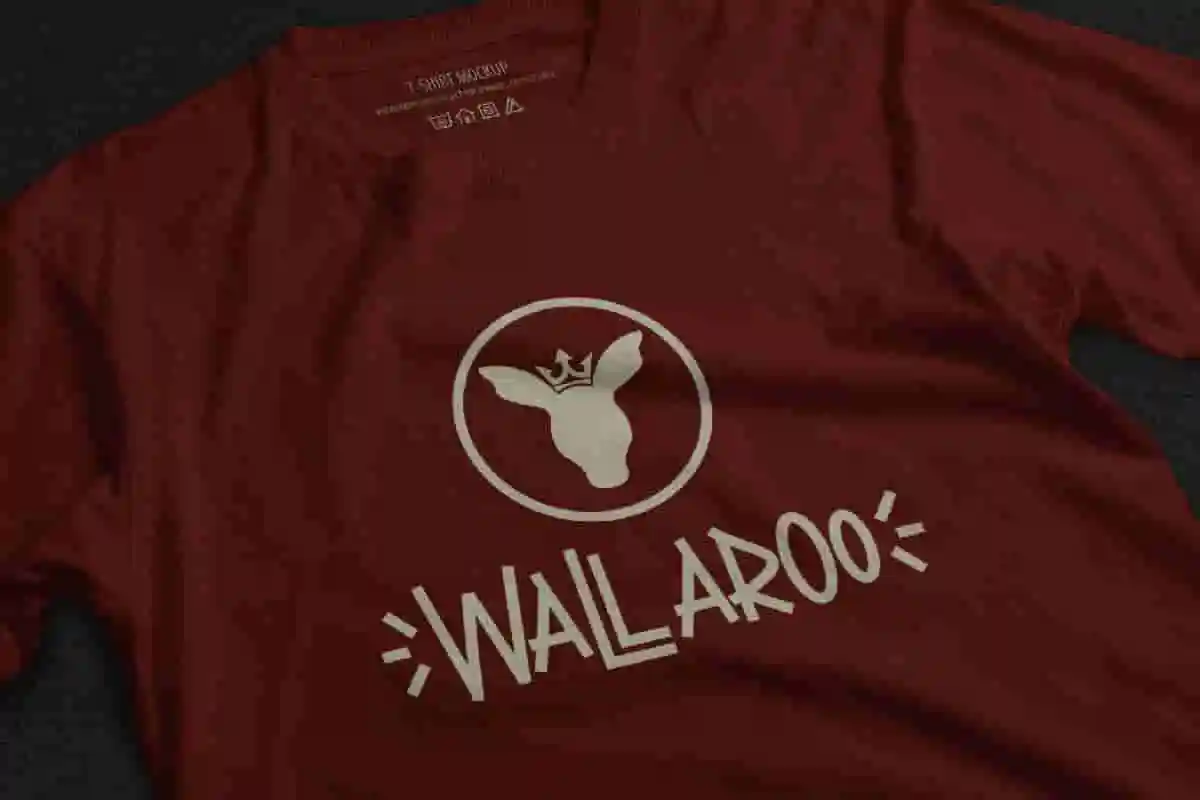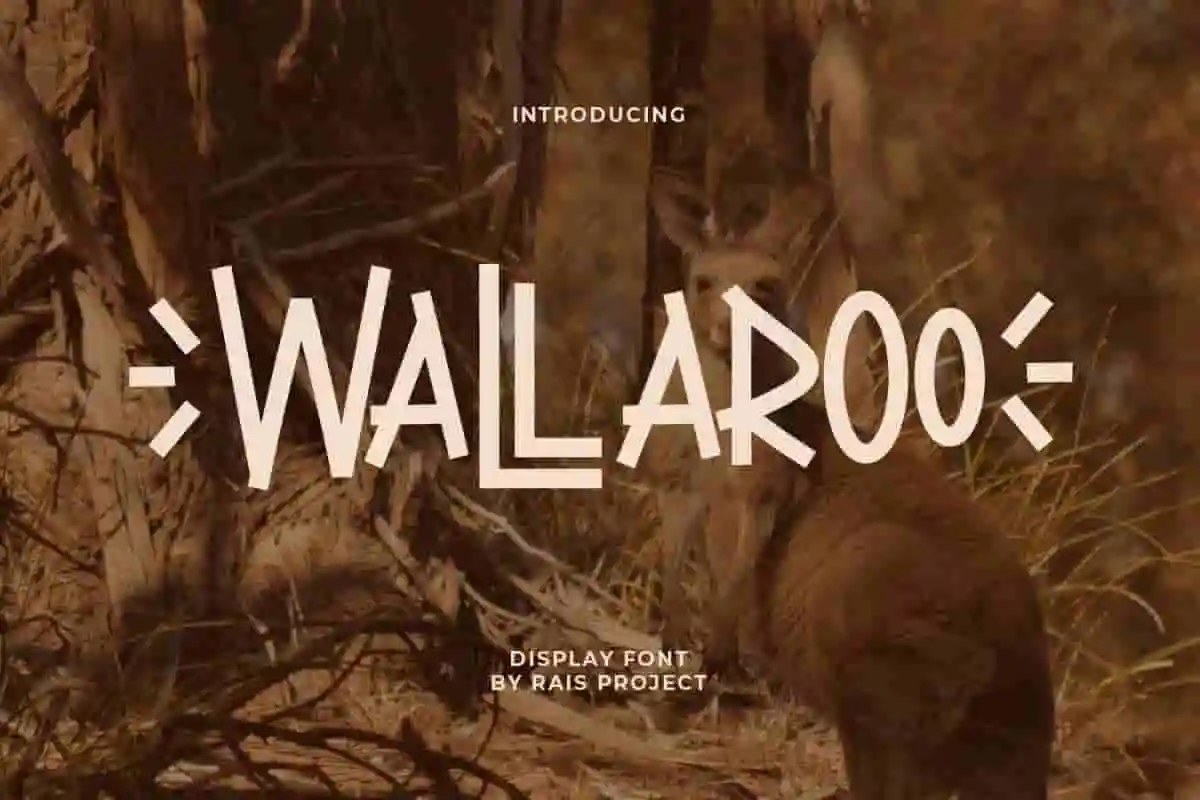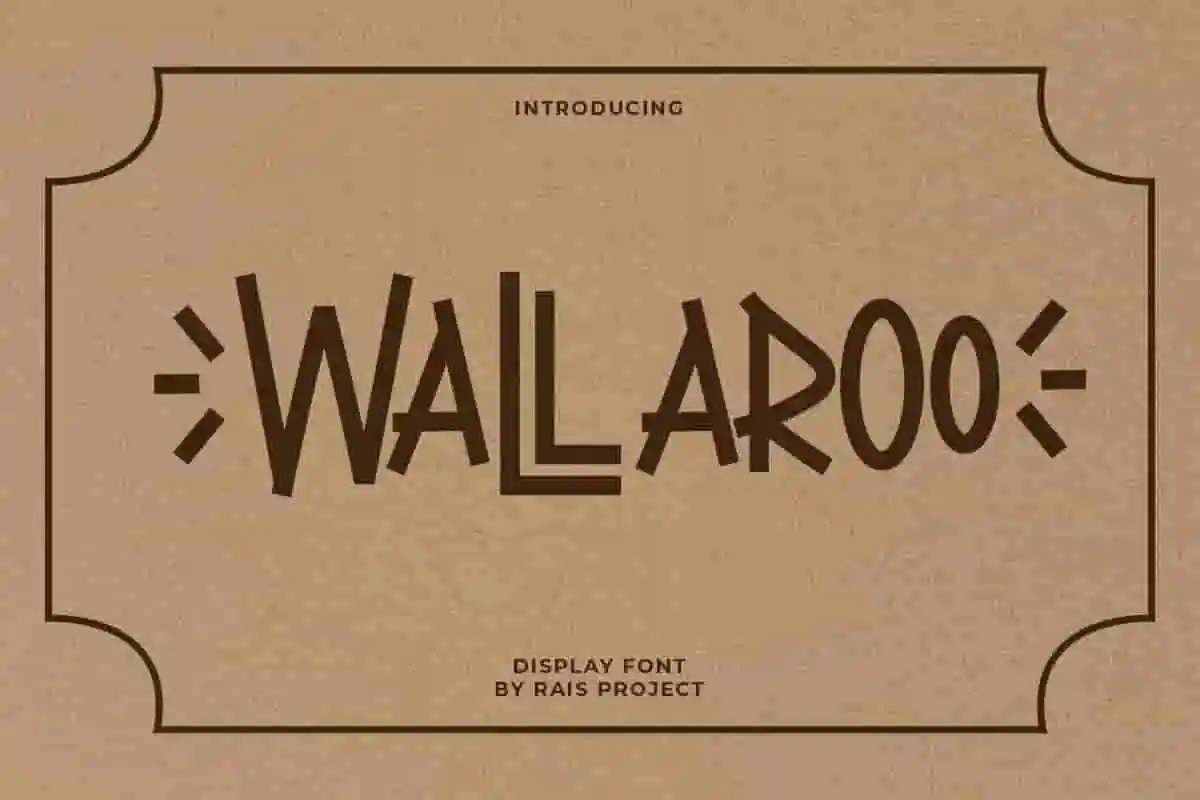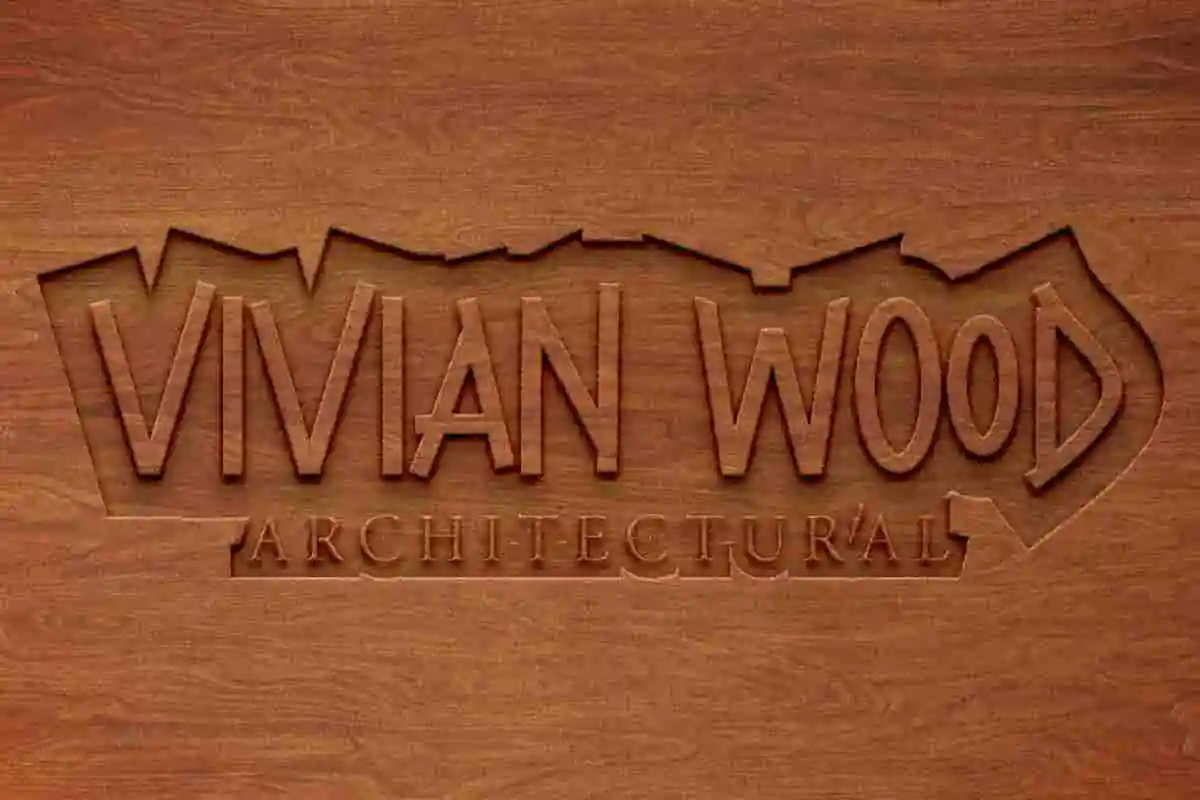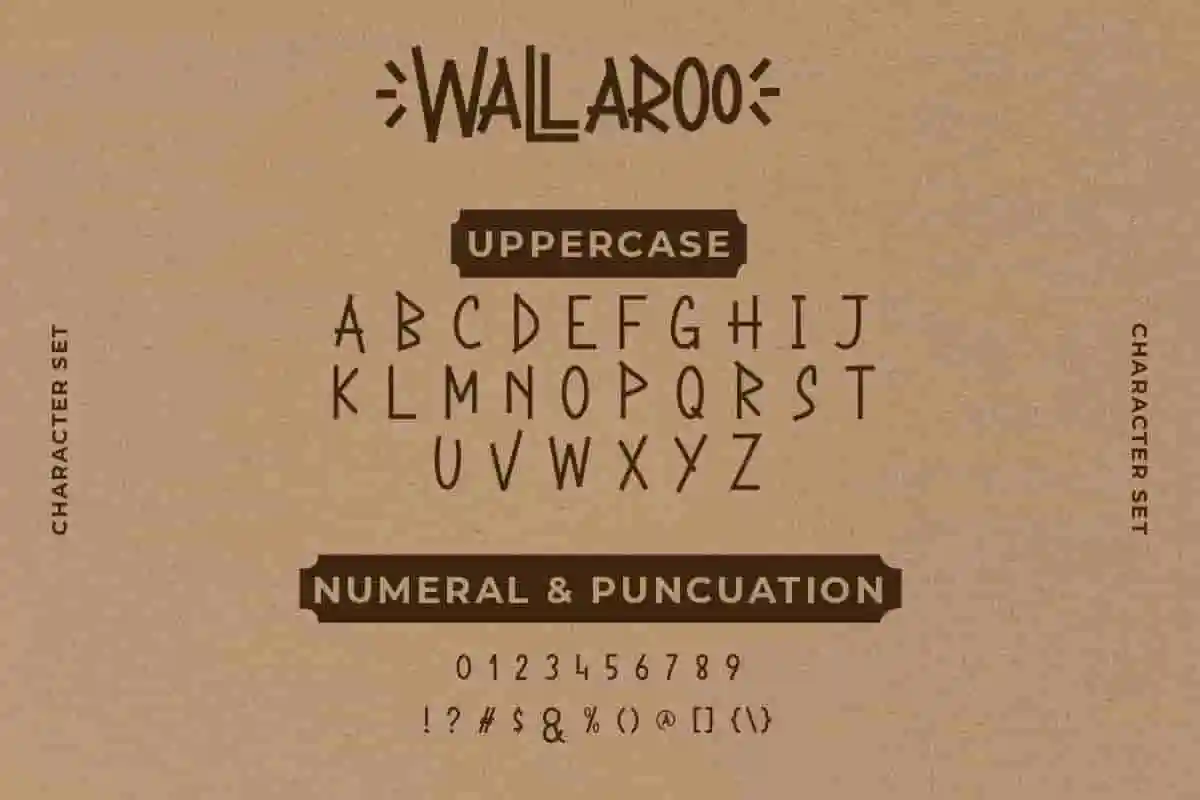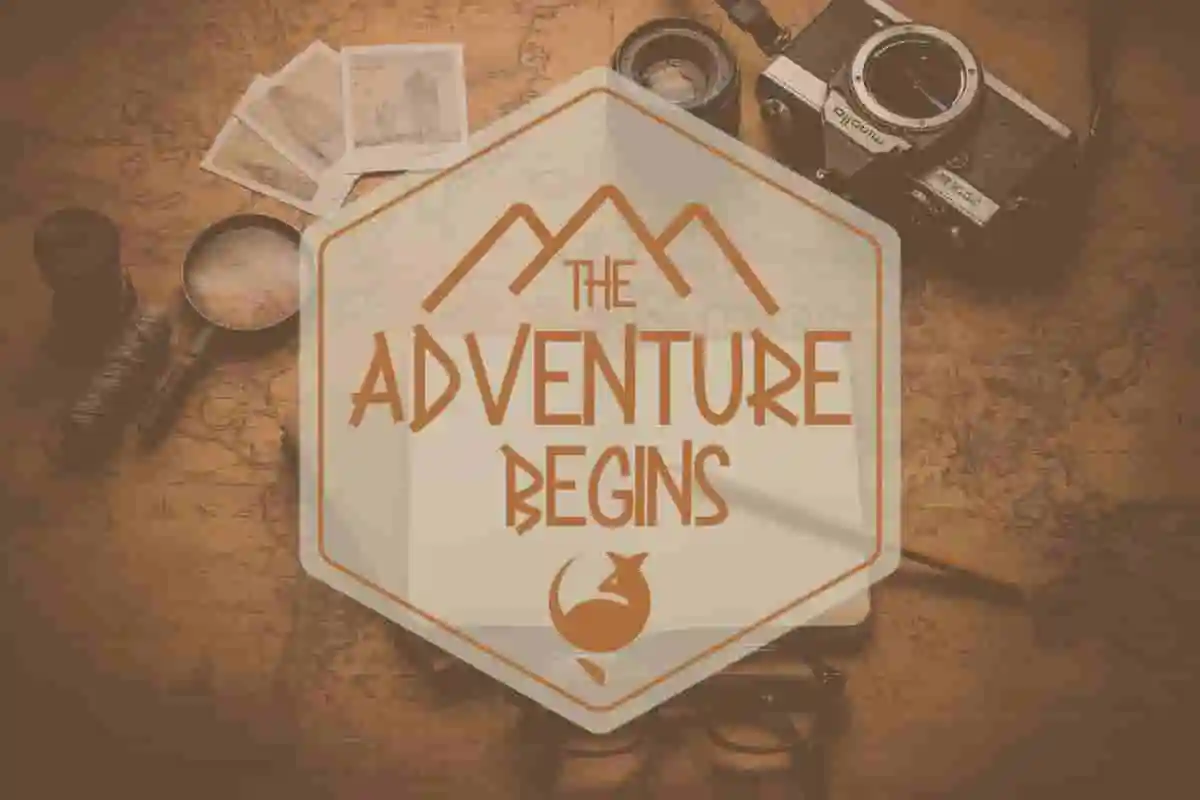
Wallaroo Display Font
Wallaroo Font is a unique display decorative sans serif font family, designed by Rais Project. It will be great for Games, Movie, Music, events, Cafe, Branding etc
Wallaroo Font is a unique display Sans Serif font family, designed by RaisProject.  You can see the demo font below. You can also input any word you want so you can see what it will look like :
Wallaroo Font remotely made by RaisProject team in Indonesia. The font handcrafted for any your special projects including : brands, promotion, events, games, advertising, magazine, signage, invitation, stationery, social media posts, label, or and any projects that need unique style. The industries for this font is Events, Games, Magazine, Music, Movies, Cafe, Restaurant etc On the package You will get: